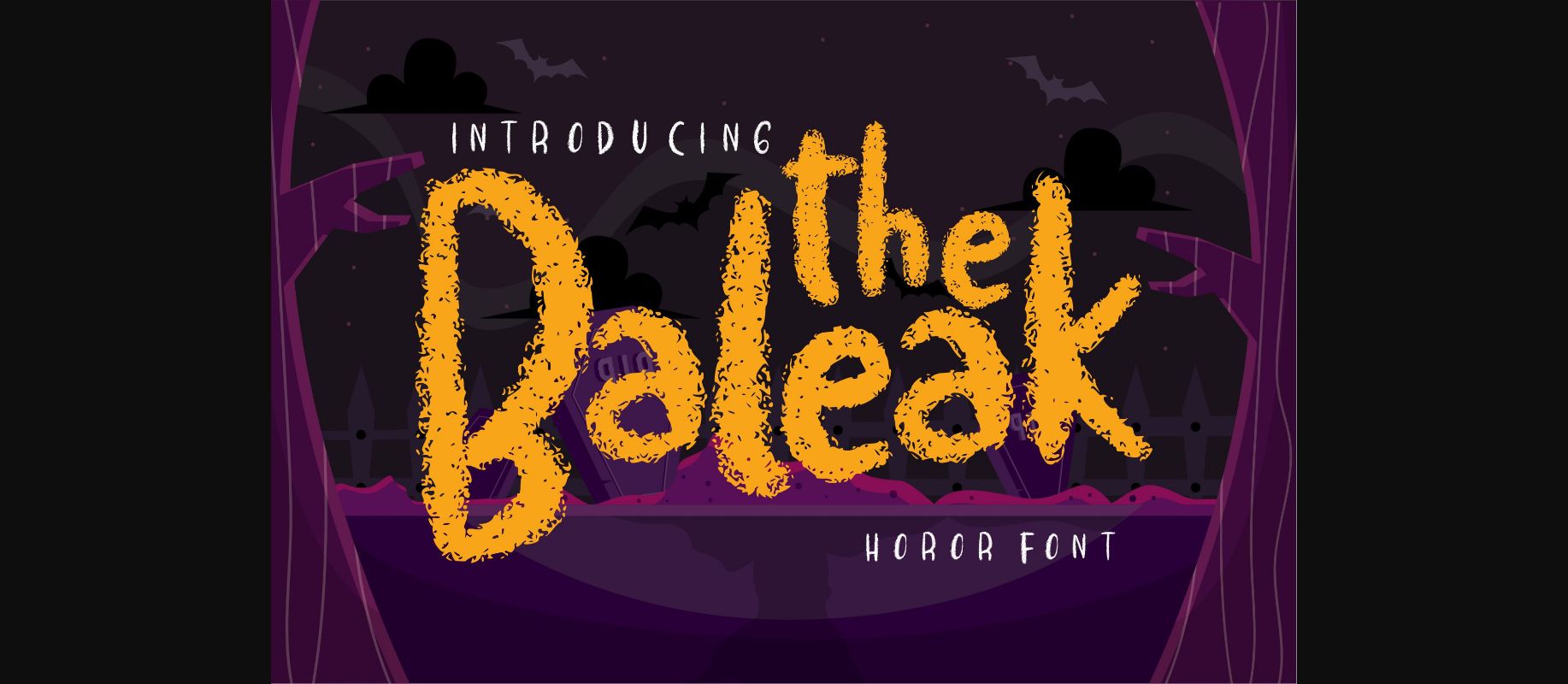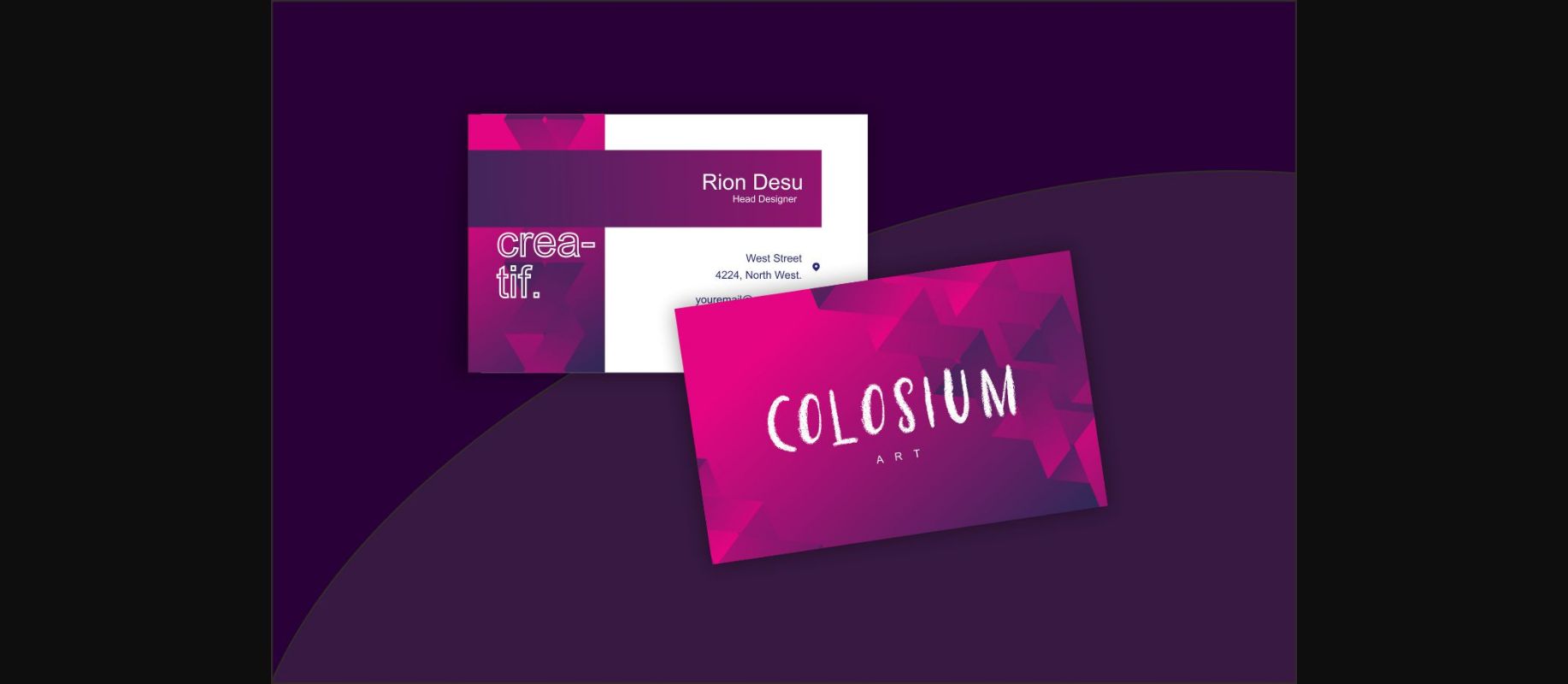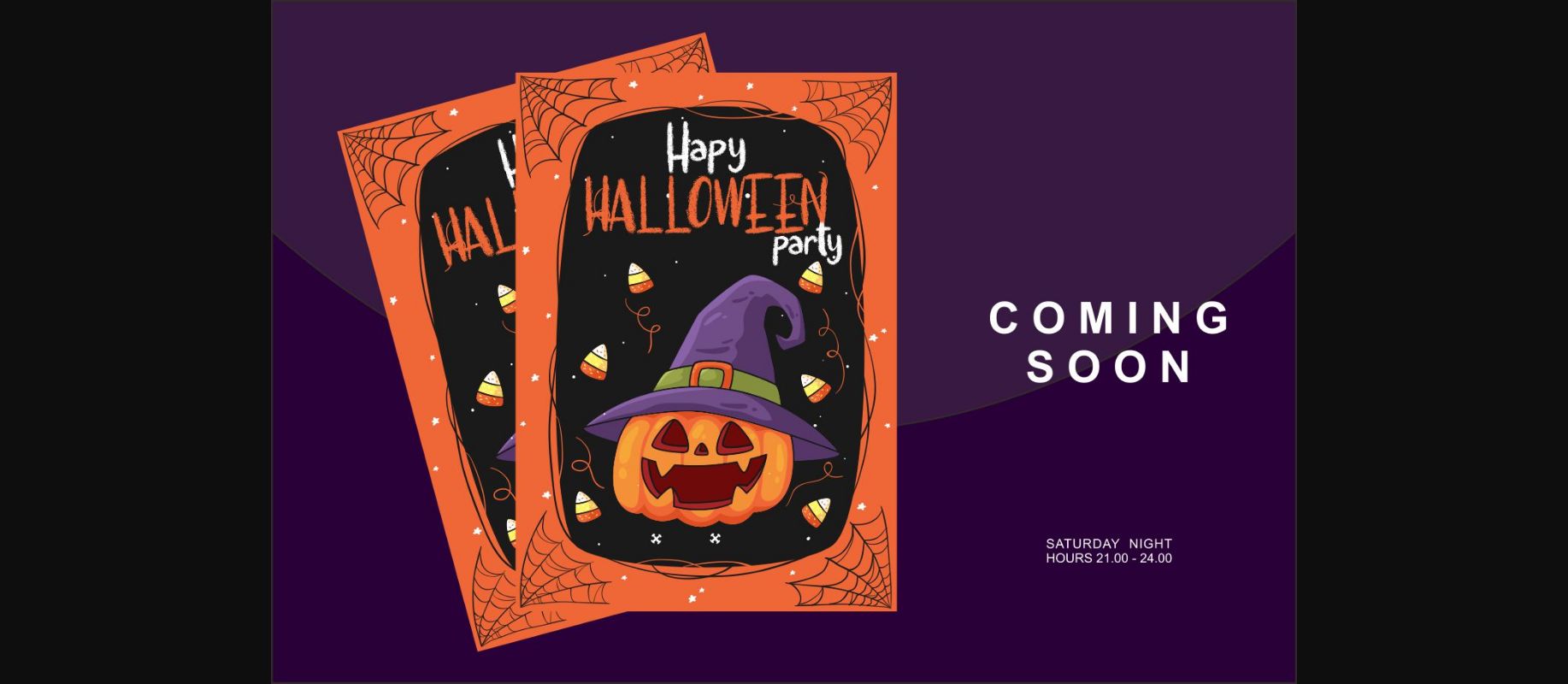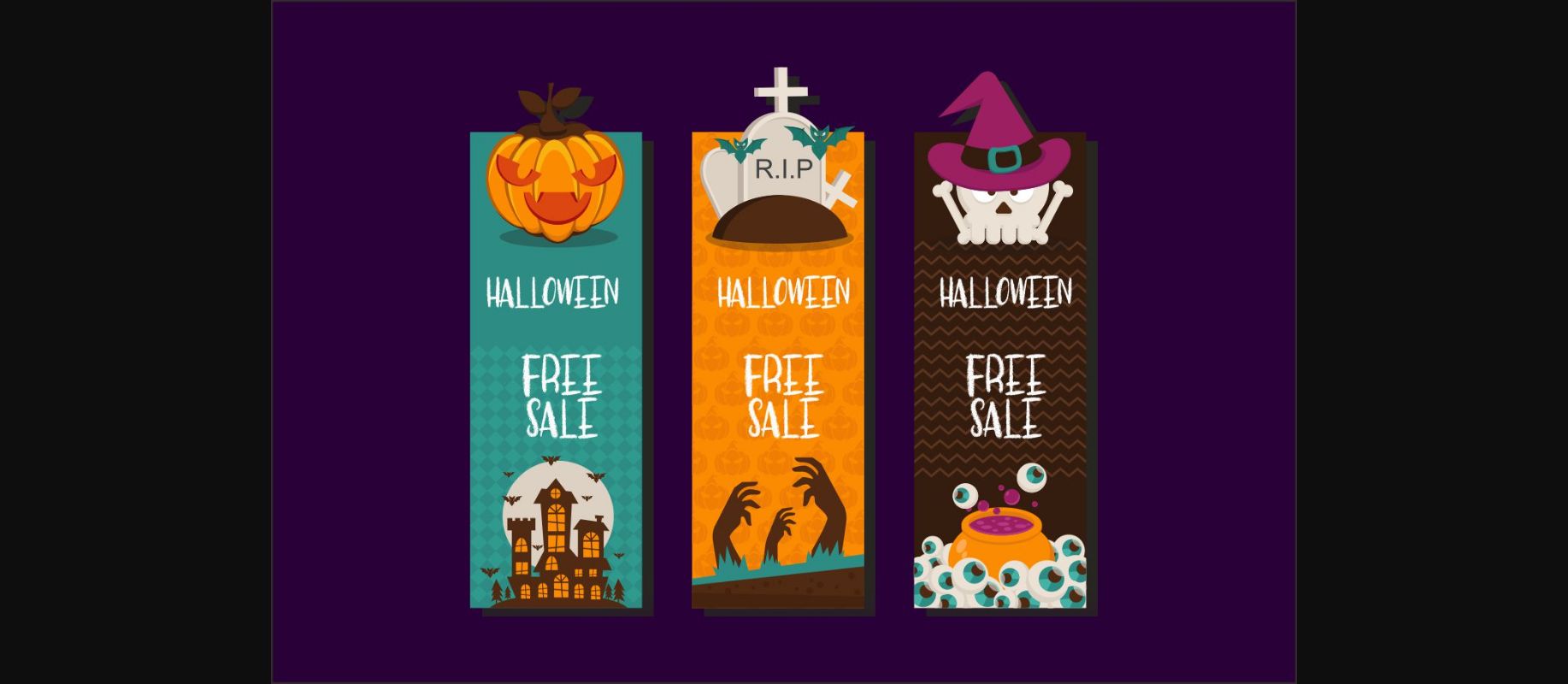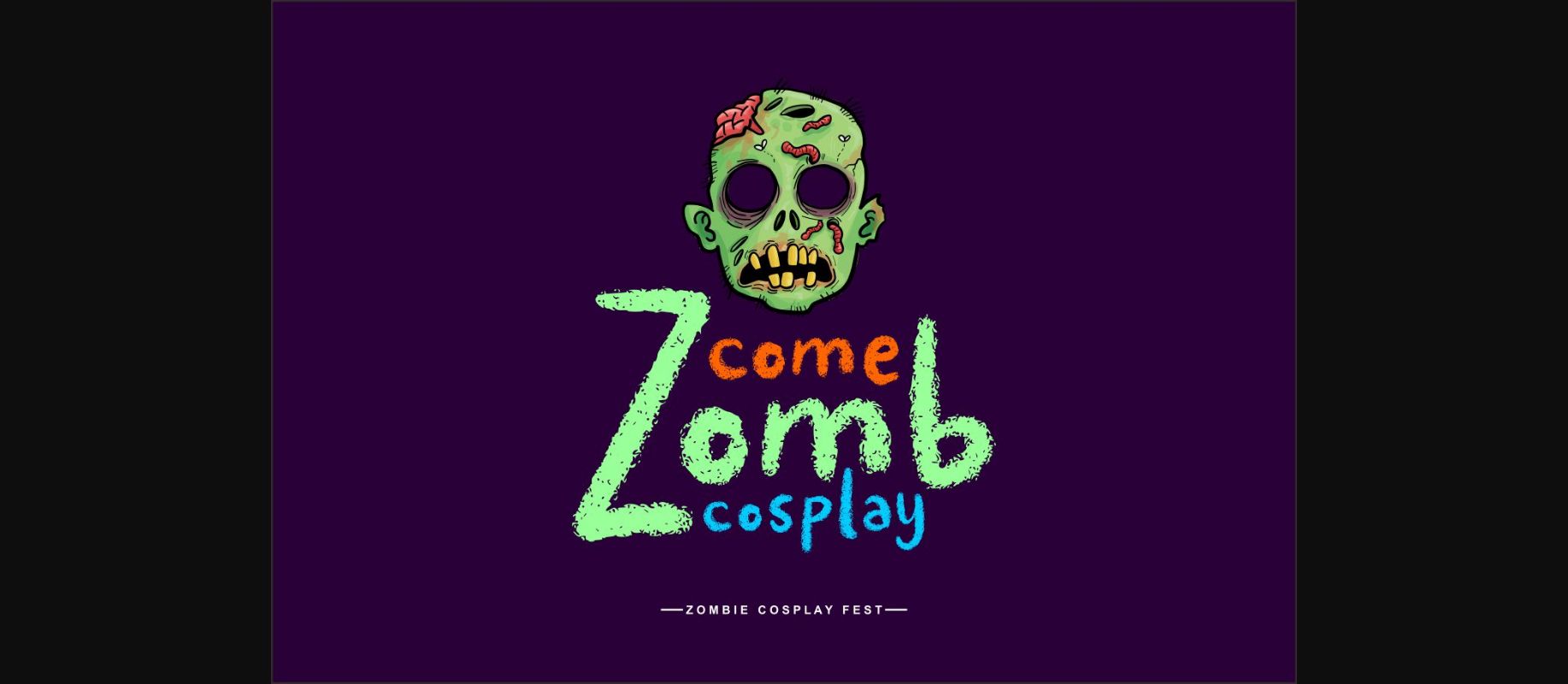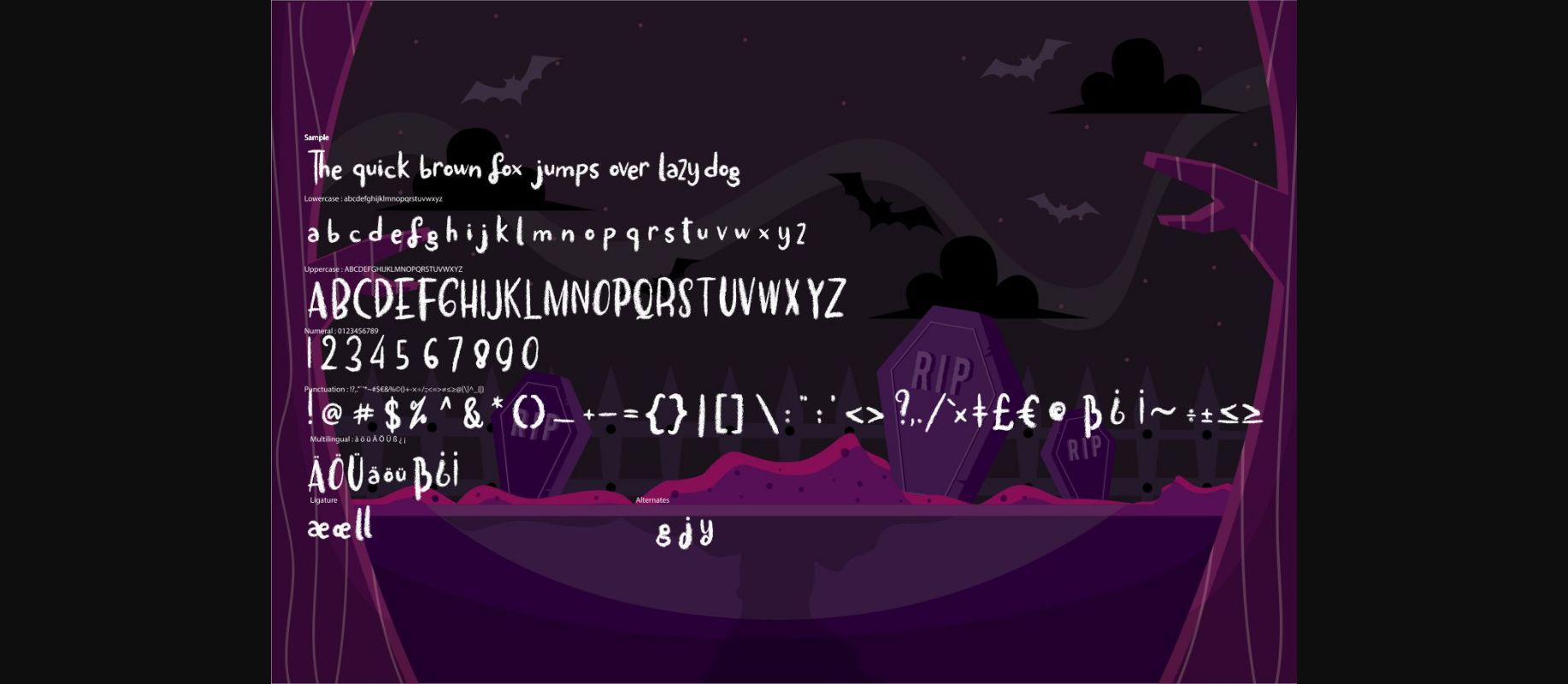
HomeDecorative FontsThe Baleak Font Decorative Fonts The Baleak Font FacebookXPinterestWhatsApp 1 of 6 About The Baleak Font The Baleak is a unique decorative typeface with a distorted style. Get inspired by its spooky appearance! DOWNLOAD NOW People also explored Wind Blows Font Rose Malow Font Da Maria Font Rainforest Letterbest Script Font Winter Night Font Royal Flush Font Octopus Grid Font Qucluck Font 338 0 TagsThe Baleak Font Previous articleRomanticism FontNext articlePaper Clip Font LEAVE A REPLY Cancel reply Comment: Please enter your comment! Name:* Please enter your name here Email:* You have entered an incorrect email address! Please enter your email address here Website: Save my name, email, and website in this browser for the next time I comment. Personal Use Free Equestrain Personal Use Free Read more about this font Folgore Personal Use Free Read more about this font BD Geminis Personal Use Free Read more about this font Glosery Personal Use Free Read more about this font BLOG How to Install and Use Fonts on Windows, macOS, and Web Projects How to Install and Use Fonts on Windows, macOS, and Web Projects Fonts are a crucial part of design and branding. Whether you’re designing a... Free vs Paid Fonts: Why Investing in Premium Fonts Is Worth It Modern Sans-Serif Fonts That Brands Love in 2025 Exploring Font Trends